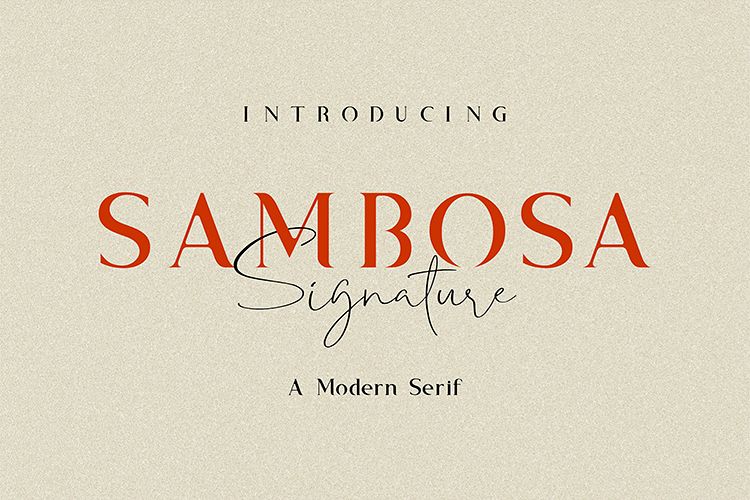
Sambosa with Signature is a beautiful high fashion font duo that makes for gorgeous logos, posters, wedding invitations, blog posts, social media, and more! Sambosa includes Signature to make everything look totally hand-done, and alternates for each letter.
- Containing upper & lowercase characters, full set of punctuation and numerals, with opentype features with stylistic alternates and signature.
- An broader version of the font for a Sambosa different feel.